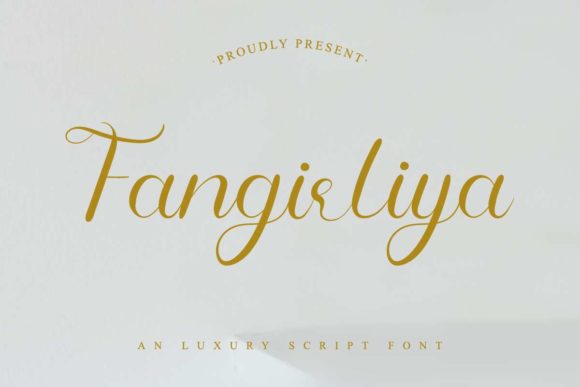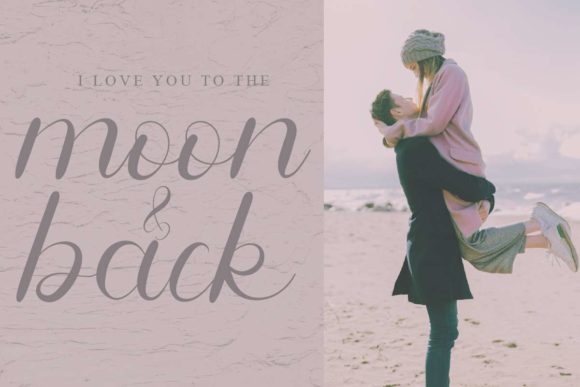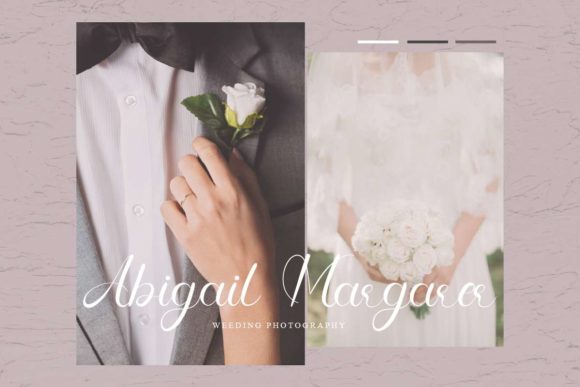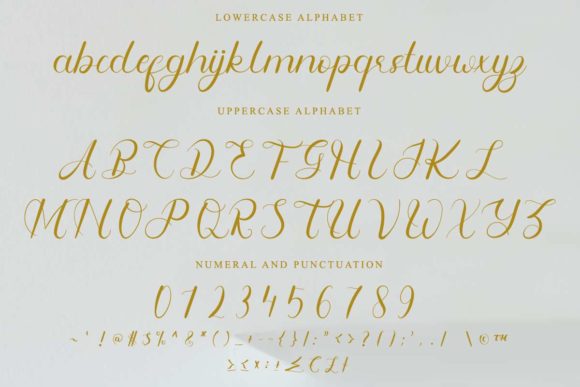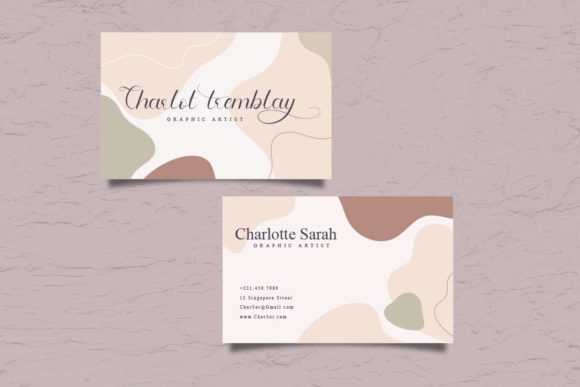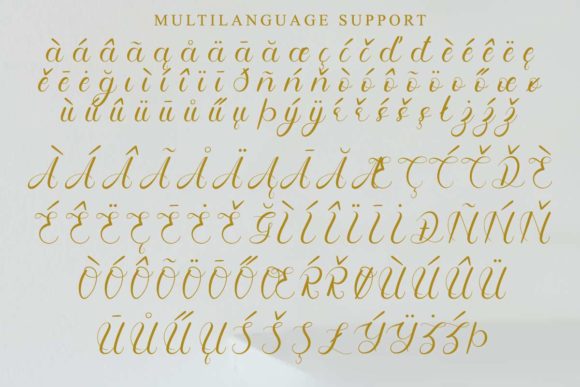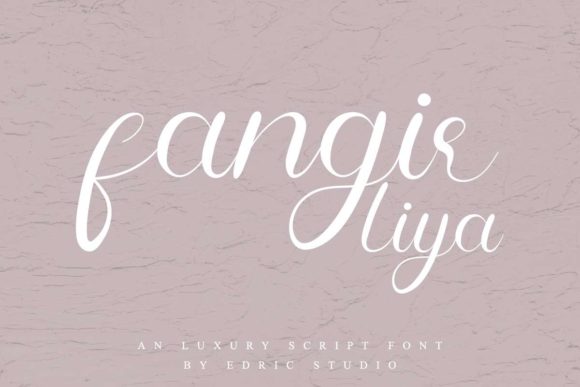
Fangirliya Font: Elevate Your Designs with Exquisite Calligraphy
In the world of typography, a font can make or break a design. For crafters, designers, and artists, finding the perfect typeface can be a daunting task. However, if you’re looking for a script that exudes elegance, sophistication, and friendliness, look no further than the Fangirliya Font. This stunning calligraphy script typeface is a brush-style font that is sure to take your designs to the next level.
A Classic yet Friendly Style
Fangirliya Font boasts an incredibly classic style that is reminiscent of traditional calligraphy. Its brush-style strokes and fluid movements give it a sense of elegance and refinement. However, what sets Fangirliya apart from other classic scripts is its friendly feel. The font’s gentle curves and soft edges make it approachable and inviting, perfect for designs that require a personal touch.
The Perfect Font for Outstanding Designs
Whether you’re a seasoned designer or a crafty DIY enthusiast, Fangirliya Font is the perfect choice for creating original and outstanding designs. Its unique blend of classic and friendly styles makes it versatile enough to be used in a wide range of projects, from wedding invitations and branding materials to digital graphics and signage.
A Wealth of Special Features
Fangirliya Font is more than just a beautiful script – it’s also packed with special features that will take your designs to the next level. Some of these features include:
- Alternate Glyphs: Add some extra flair to your designs with Fangirliya’s alternate glyphs. From subtle variations to dramatic flourishes, these glyphs will help you create unique and eye-catching text.
- Ligatures: Give your text a smooth, connected feel with Fangirliya’s ligatures. These special characters combine to create a flowing, natural look that’s perfect for headings, titles, and more.
- Swashes: Add a touch of elegance to your designs with Fangirliya’s swashes. These beautiful, flowing strokes can be used to create stunning initial caps, borders, and other design elements.
Why Choose Fangirliya Font?
So why should you choose Fangirliya Font for your next design project? Here are just a few reasons:
- Unique Style: Fangirliya’s classic yet friendly style sets it apart from other fonts. Your designs will stand out with this beautiful script.
- Versatility: Whether you’re working on a wedding invitation, a branding campaign, or a digital graphic, Fangirliya Font is versatile enough to handle any project.